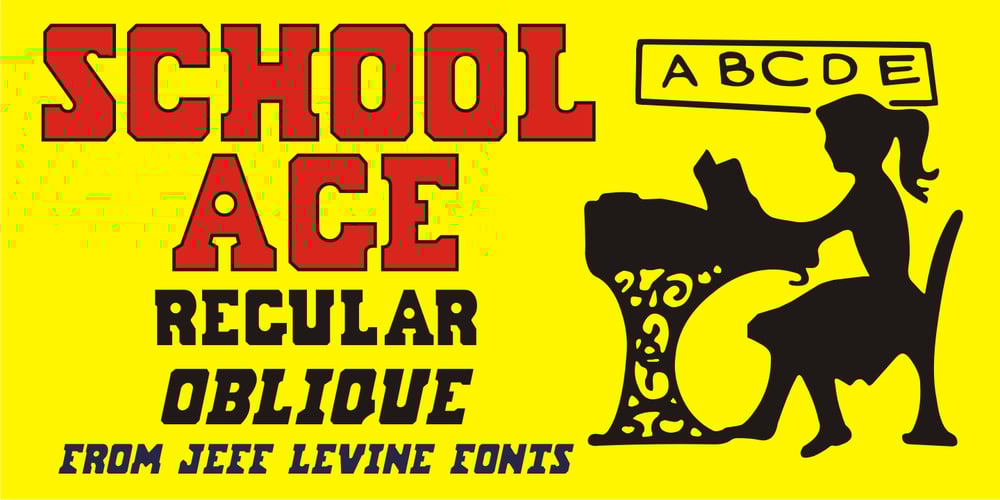
School Age Font Family was designed by Jeff Levine and published by Jeff Levine. School Age contains 2 styles and family package options. The “Trixy Toy Educator” was a 1930s-era set of letters and numbers (along with a few animal shapes) for teaching children, and was manufactured by the Durrel Company of Gardner, Massachusetts. Die cut from thick cardboard, the 40 piece set also included a rack to display the characters, presumably for little ones to practice the correct order of the alphabet and basic numerals or to spell simple words like ‘dog’ or ‘cat’. Whomever came up with the idea, they used the most rudimentary and unusual ‘type design’ shapes in the A-Z and 0-9, but they were just odd enough to inspire a digital type version of them. School Age JNL is available in both regular and oblique versions.